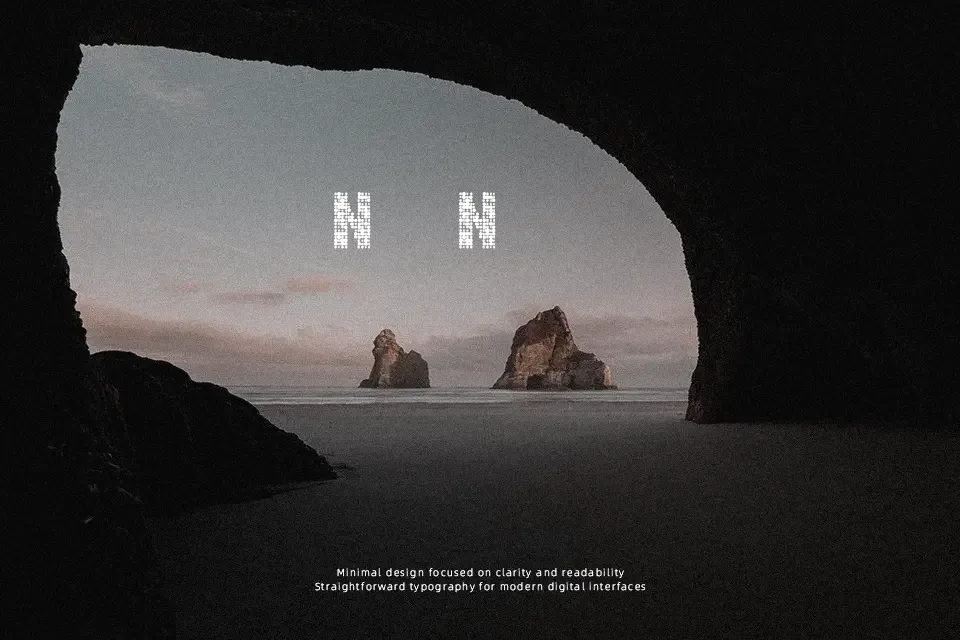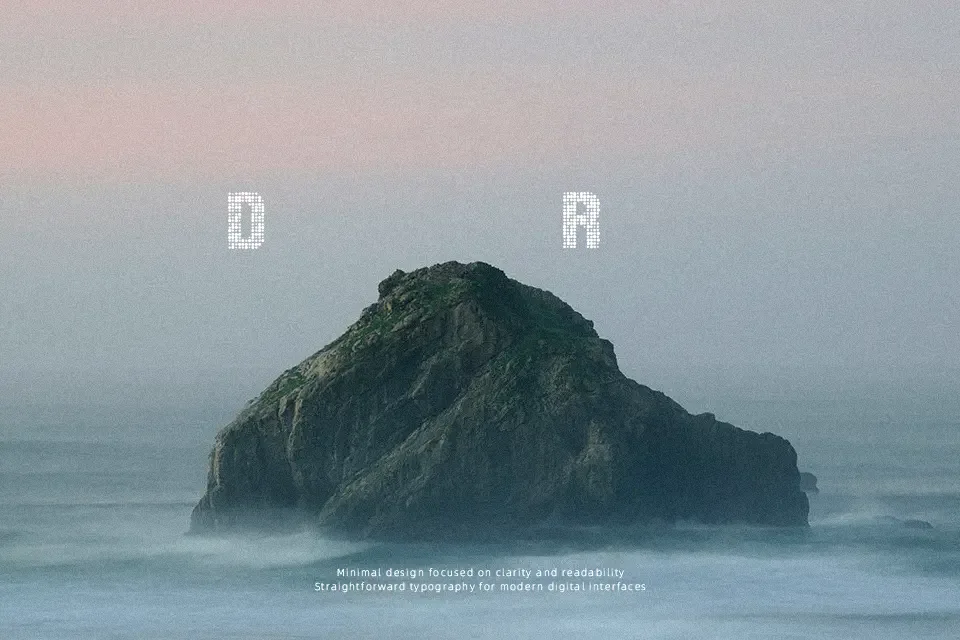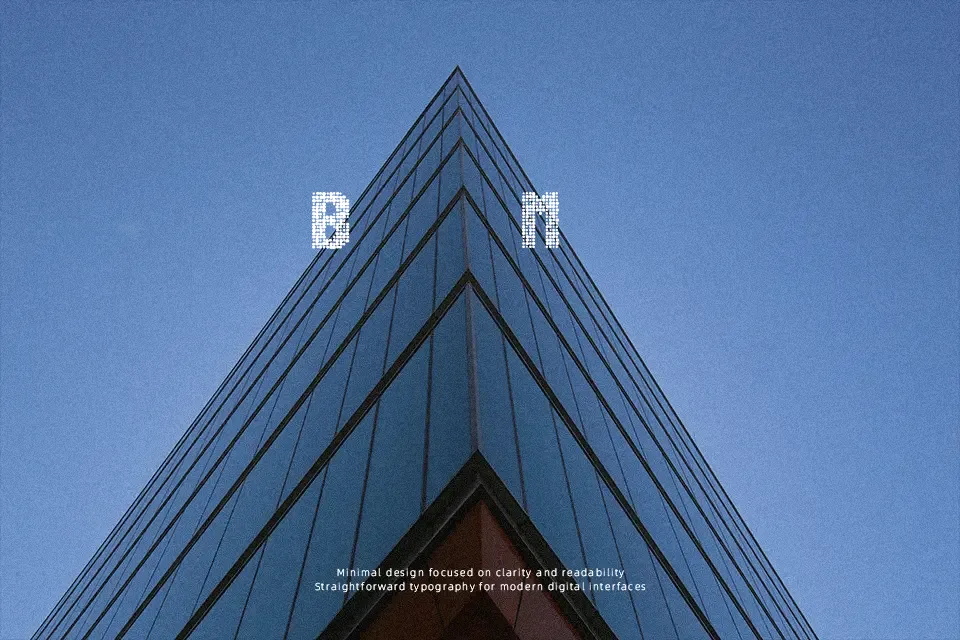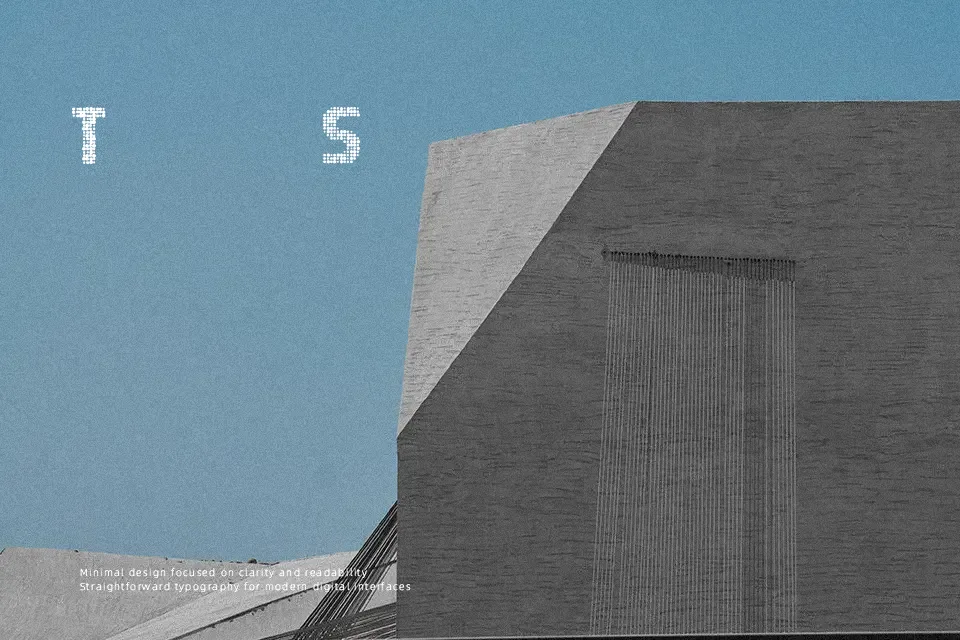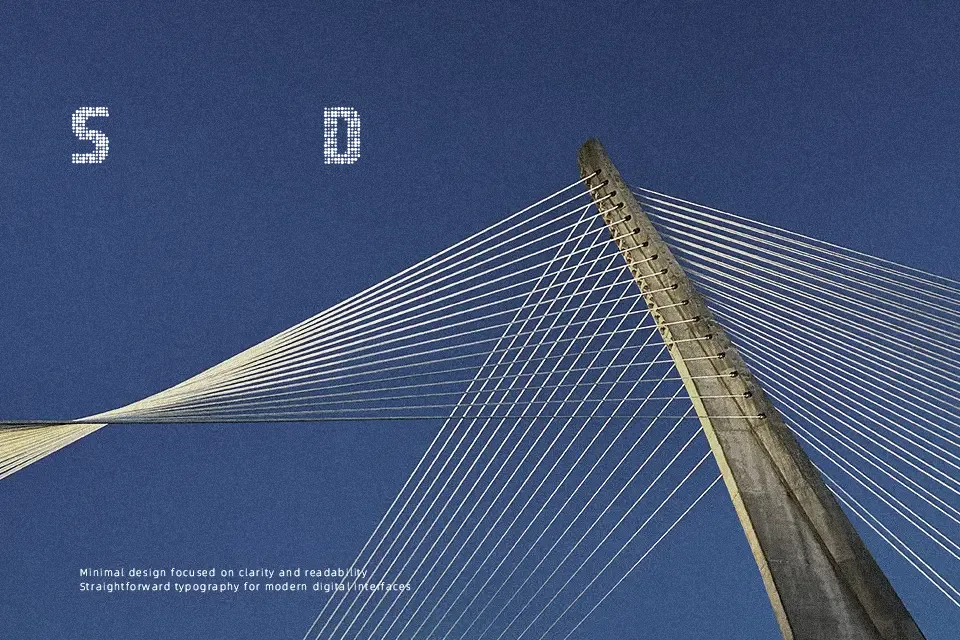
Stardots Font
Constructed with intricate dot arrangements, Stardots Font presents a bold display aesthetic rooted in vintage geometric styling. The letterforms maintain uniform stroke weights and generous proportions, creating an open visual rhythm that keeps characters distinct when rendered at substantial scales. Tight tracking and porous interior dot patterns ensure immediate graphic recognition in promotional flyers, album covers, and club signage. However, the decorative perforations rapidly deteriorate at smaller point sizes, making the typeface impractical for continuous body text, dense mobile interfaces, or technical captions. Spacing works effectively across short phrases, giving designers a specialized display option for vibrant retro branding.
Best For: retro party posters,music album covers,novelty apparel graphics,club event signage
Not Ideal For: continuous body text,dense editorial paragraphs,mobile app interfaces,technical documentation
Perfect for advertising, headline, and music, with a bold and decorative style.